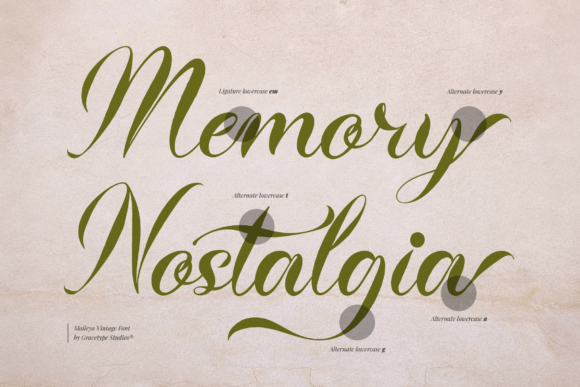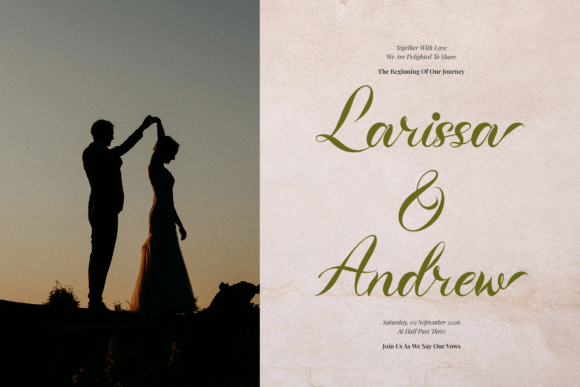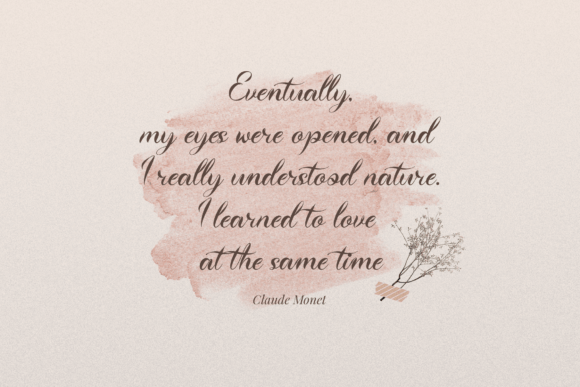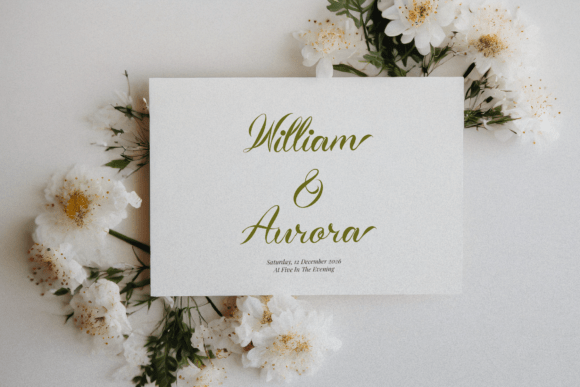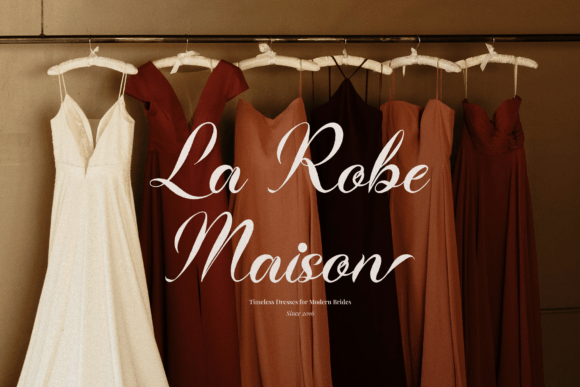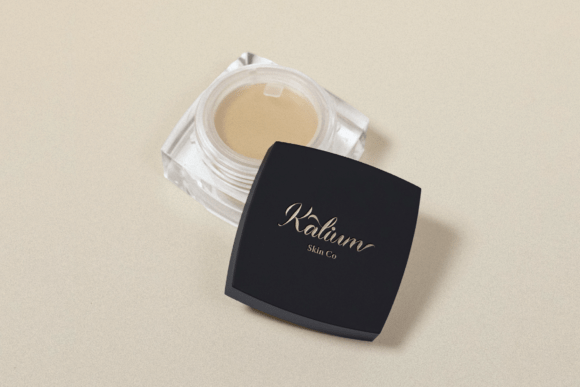
Introduction to Maileya Vintage Font
Step back in time with Maileya Vintage, a sophisticated script typeface that captures a “nostalgic-and-noble” soul.
This font features fluid, hand-drawn letterforms uniquely characterized by rhythmic, sweeping descenders and high-contrast strokes that bridge the gap between classic 19th-century penmanship and modern luxury branding With its medium structural weight and graceful personality, Maileya Vintage is the premier choice for independent boutique winery identities, premium wedding invitations, artisanal floral packaging, and high-impact “stately-and-stylized” social media headers.
Key Features of Maileya Vintage Font